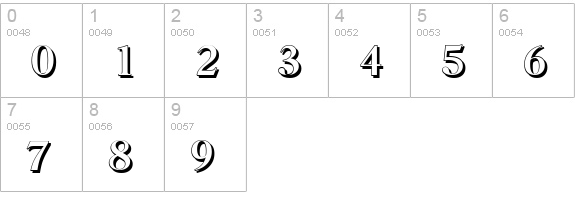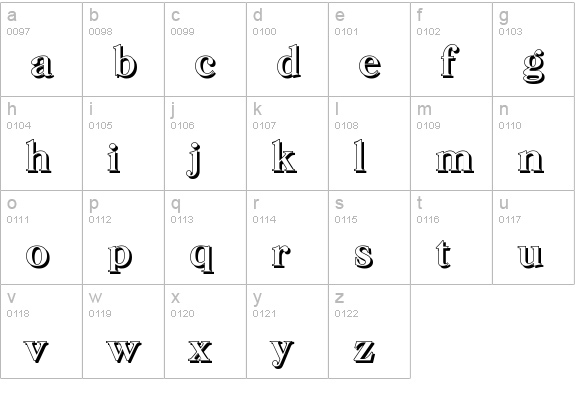
HorshamShadow-Regular is the standard, neutral variant in the HorshamShadow typeface family \xE2\x80\x94 well suited to general body text, paragraphs, and standard typographic work.
HorshamShadow-Regular is a stunning and elegant font that brings a touch of sophistication to any design project. With its intricate shadow detailing, this font exudes a sense of depth and style, making it perfect for headlines, logos, and branding materials. The clean lines and classic appeal of HorshamShadow-Regular make it a versatile choice for both print and digital applications. What's even better is that this font is available for free download at FontsMarket.com. Now you can elevate your designs with HorshamShadow-Regular without having to worry about any additional costs. Don't miss out on this opportunity to add a touch of elegance to your projects with this exquisite font. Download HorshamShadow-Regular today and let your creativity shine!